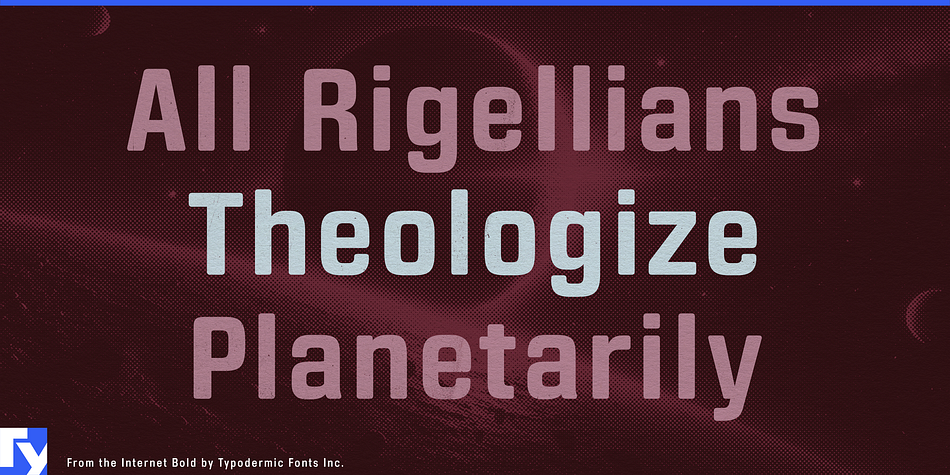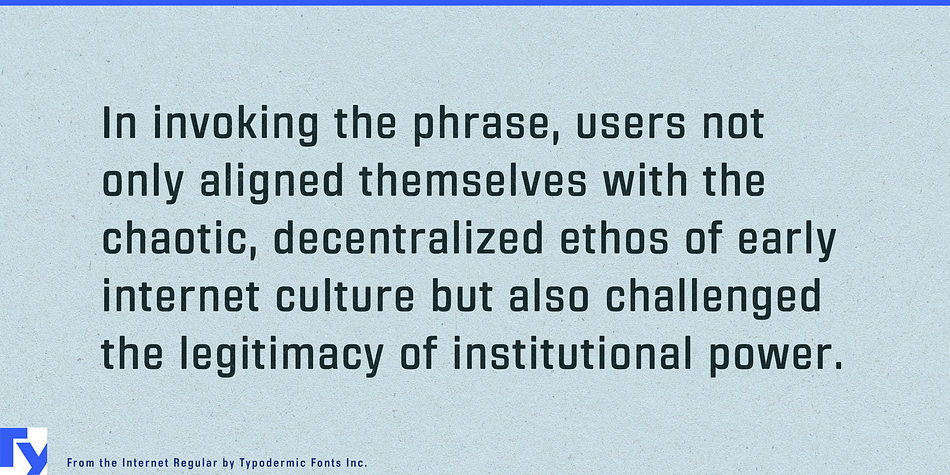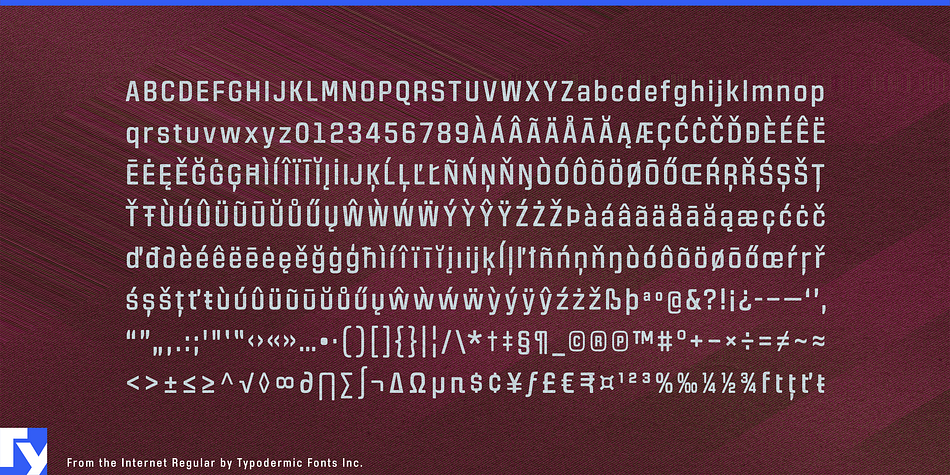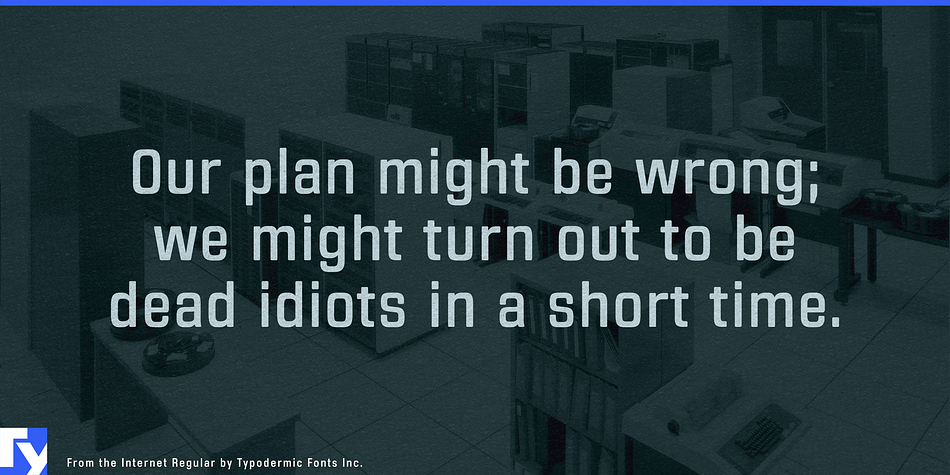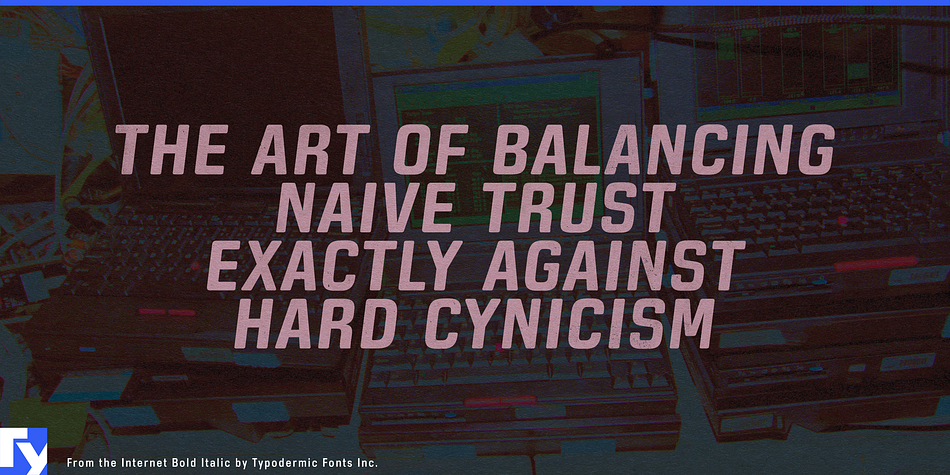
From the Internet is a sans-serif typeface that is narrow and square. Its compact, boxy shapes with softened edges blend well with current industrial design. Letterforms are austere and lack detail, but they avoid conspicuous sci-fi clichés. Using the “stylistic alternatives” functionality in OpenType-savvy apps, you can access an alternate “f” and “t”. From the Internet comes in Regular, Italic, Bold, and Bold Italic styles. Most Latin-based European writing systems are supported, including the following languages. Afaan Oromo, Afar, Afrikaans, Albanian, Alsatian, Aromanian, Aymara, Bashkir (Latin), Basque, Belarusian (Latin), Bemba, Bikol, Bosnian, Breton, Cape Verdean, Creole, Catalan, Cebuano, Chamorro, Chavacano, Chichewa, Crimean Tatar (Latin), Croatian, Czech, Danish, Dawan, Dholuo, Dutch, English, Estonian, Faroese, Fijian, Filipino, Finnish, French, Frisian, Friulian, Gagauz (Latin), Galician, Ganda, Genoese, German, Greenlandic, Guadeloupean Creole, Haitian Creole, Hawaiian, Hiligaynon, Hungarian, Icelandic, Ilocano, Indonesian, Irish, Italian, Jamaican, Kaqchikel, Karakalpak (Latin), Kashubian, Kikongo, Kinyarwanda, Kirundi, Kurdish (Latin), Latvian, Lithuanian, Lombard, Low Saxon, Luxembourgish, Maasai, Makhuwa, Malay, Maltese, Māori, Moldovan, Montenegrin, Ndebele, Neapolitan, Norwegian, Novial, Occitan, Ossetian (Latin), Papiamento, Piedmontese, Polish, Portuguese, Quechua, Rarotongan, Romanian, Romansh, Sami, Sango, Saramaccan, Sardinian, Scottish Gaelic, Serbian (Latin), Shona, Sicilian, Silesian, Slovak, Slovenian, Somali, Sorbian, Sotho, Spanish, Swahili, Swazi, Swedish, Tagalog, Tahitian, Tetum, Tongan, Tshiluba, Tsonga, Tswana, Tumbuka, Turkish, Turkmen (Latin), Tuvaluan, Uzbek (Latin), Venetian, Vepsian, Võro, Walloon, Waray-Waray, Wayuu, Welsh, Wolof, Xhosa, Yapese, Zapotec Zulu and Zuni.